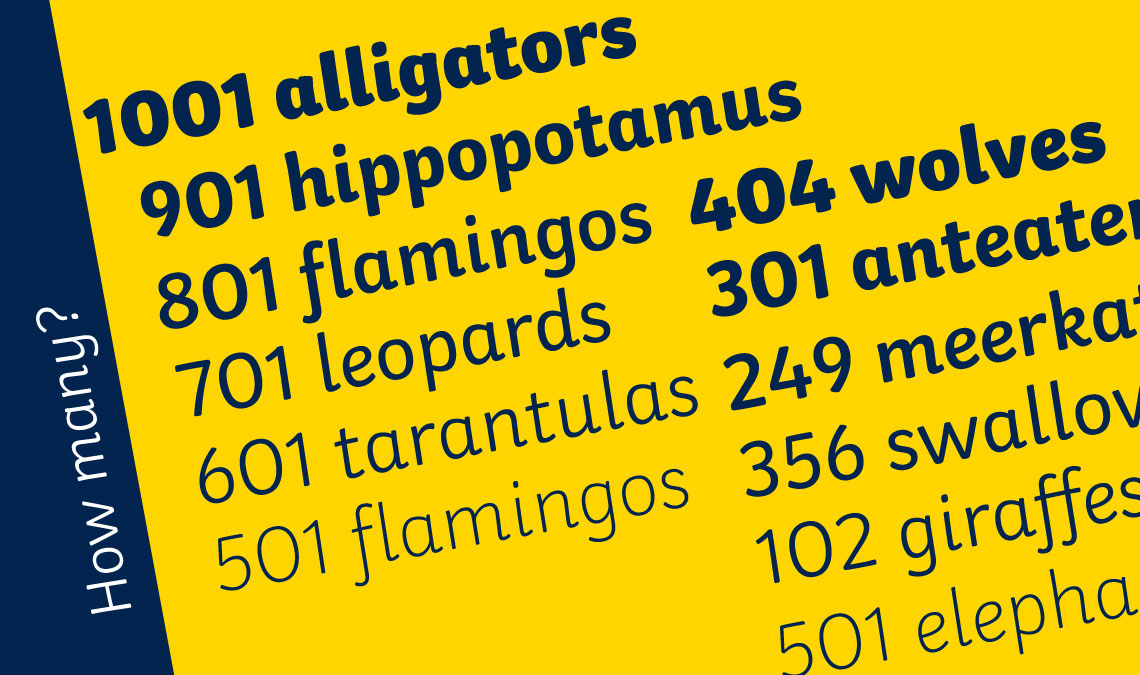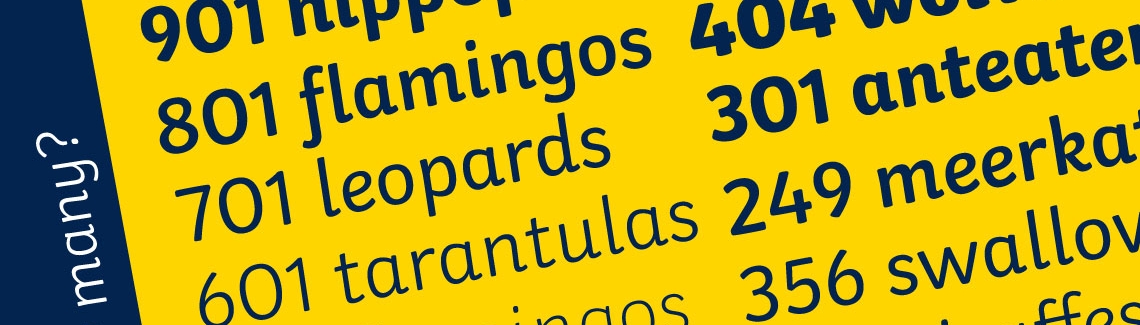
The latest type family tailor made for the educational company Twinkl solves the dual problems of establishing strong corporate branding across digital and printed media, while having the ability to typeset text for children and educators.
evolving educational environment
Twinkl resources occupy a rapidly evolving educational environment, where educators and parents are increasingly engaged in tailoring student journeys with dedicated learning resources. Twinkl’s approach is reflected by its new branding typeface, an important educational tool that supports consistent and clear documents for learners from early years to KS2. The brief for the custom typeface required a lively and friendly appearance on the page, while enabling well-structured documents that cover the full range of educational material in the curriculum, in print and on screen.
The aim was to balance a wide range of requirements, from different use scenarios (from early reading to complex worksheets) to the robustness required to accommodate a wide range of printers and screens across mobile and desktop environments. In these respects, the Twinkl typeface is pioneering: not only did it integrate in the design process the widest possible range of stakeholder feedback, it is also the only typeface of its kind developed specifically with the current document platforms in mind.
The key design parameters of the typeface were not decided in a vacuum: it closely follows the specifications for teaching letter shapes in the UK, which allows it to be used for both reading and writing exercises. This functionality is enhanced by including both cursive and typographic versions of letters such as a, e, f, g and k, among others, in the same family. This allows educators to create documents that are tailored to specific learning tasks, and customise the documents for different learner groups. Enabling this within a single type family is an important element for meeting the multiple requirements of a typeface for early-years education.
The overall design of the typeface is typographically accomplished, combining technical proficiency for longer and complex documents. It appears lively, friendly, and approachable to young children, while enabling a smooth transition to longer texts and independent reading in later years. The typeface also includes a range of coordinated symbols and marks that are required in educational resources, ensuring that documents maintain a consistent and distraction-free typographic environment.
At the same time, the typeface has a distinctive personality that allows it to carry the Twinkl brand across documents and platforms with confidence and clarity. By combining a valuable educational tool with a powerful branding asset, Twinkl’s new typeface family becomes a highly visible marker for quality and identity.